The Indian Type Foundry’s two newest typefaces are both sans serifs from graduates of the renowned type]media MA course in type design at the Royal Academy in The Hague (KABK). Although Expose and Yuzu are very different designs, which are developed for different applications, they share some similarities. For instance, each is clean and clear, with letterforms that are instantly recognisable, even at a distance. They both look like tools intended for heavy lifting, and we think that they’ll go far. Expose is a typeface for headlines and general editorial work. It was designed by Lukas Schneider, who is based in Frankfurt. Yuzu is branding family from Elliott Amblard, a designer working in Paris.
Expose
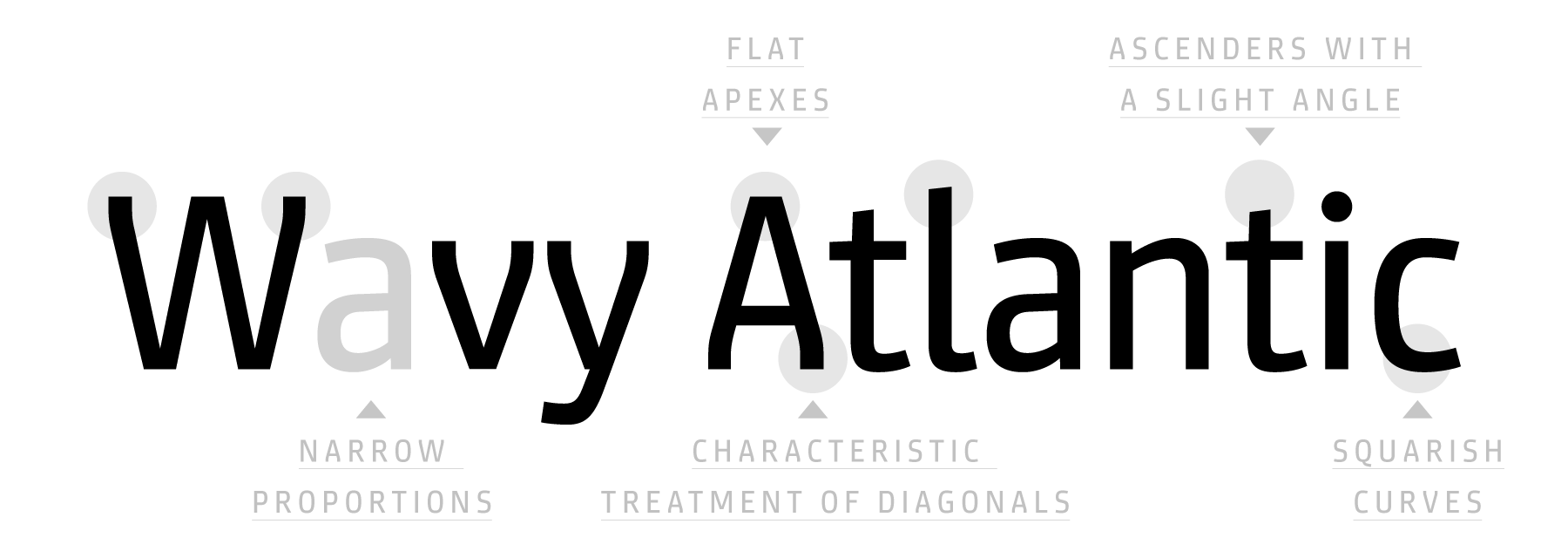
In terms of its appearance, Expose is a constructed sans. It looks like it has taken letterforms drafted by engineers and crossed them with avant-garde remixes of typewriter faces. As a family, it includes four fonts, ranging in weight from Regular through Black. Expose was originally developed as part of a redesign effort for an English-language newspaper here in India. Sadly, the publisher eventually opted not to use the typeface; now it is available for general licensing as part of our ITF library.
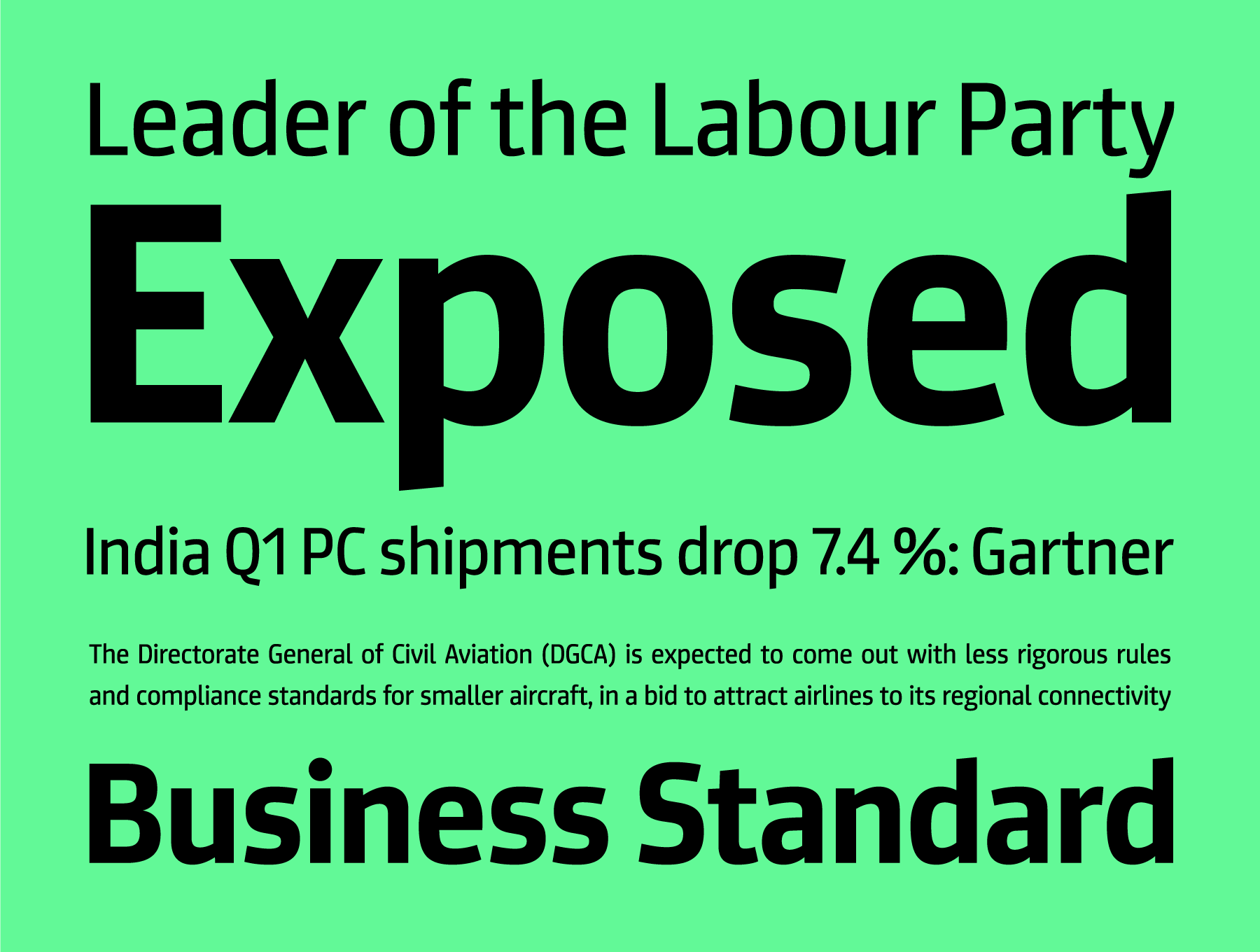
Newspaper headlines need to be compact, and the counters inside of Expose’s letters achieve this by being almost squared off. Something similar happens with Expose’s diagonal strokes, too. Several diagonals change direction towards one end of their stroke, such as in the ‘A’ ‘V’ ‘W’ ‘Y’ ‘v’ ‘w’ ‘y’ and ‘7’, but not the ‘K’ ‘X’ or ‘x’. This stroke change is a feature commonly seen in monospaced sans serifs. While Expose’s design is proportionally-spaced, its design does feel somewhat uniform – especially in its capital letters. The stroke-endings on round letters like ‘C’ ‘G’ ‘J’ ’S’ ‘c’ ‘e’ ‘j’ ‘l’ ‘r’ ’s’ ‘y’ ‘2’ ‘3’ ‘6’ and ‘9’ end in slightly diagonal, rather than vertical shears; this is mirrored by the tops of the ascending strokes on ‘b’ ‘h’ ‘k’ ‘l’ and ’t’. Unusual for a constructed-style sans, Expose’s fonts use the double-storied ‘g’ form.
Yuzu
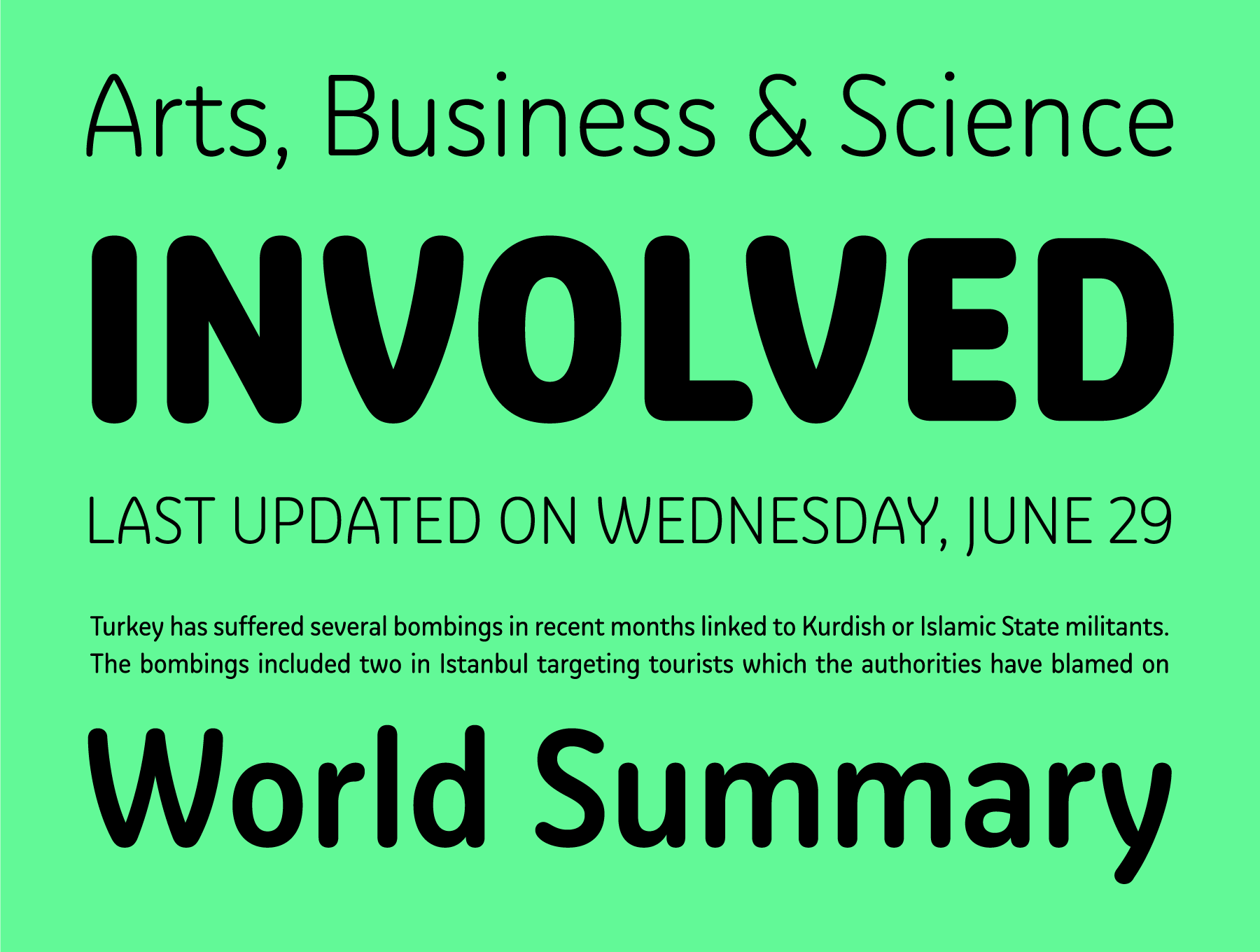
A yuzu is a citrus fruit native to East Asia. It is a great addition to cocktail recipes. ITF’s new Yuzu typeface, on the other hand, is a soft sans. It features rounded stroke-endings and slightly narrow caps. The family includes five styles – Light to ExtraBold – and each font includes 439 glyphs. Aside from its terminals, other soft features in Yuzu’s design include a beard on bottom-right of the capital ‘G’, and arched diagonals on the ‘A’ ‘K’ ‘V’ ‘W’ ‘X’ ‘Y’ ‘k’ ‘v’ ‘w’ ‘x’ ‘y’ ‘4’ and ‘7’. The Yuzu fonts each have two OpenType Stylistic Sets, with alternate letterforms. Stylistic Set 1 includes alternate versions of the typeface’s diagonal letters. Using it substitutes ‘A’ ‘K’ ‘V’ ‘W’ ‘X’ ‘Y’ ‘k’ ’t’ ‘v’ ‘e’ ‘x’ and ‘y’ with straight-stroked diagonals. Stylistic Set 1 also has an alternate letter ‘G’. This version still has a beard; however, it is significantly shorter. The standard lowercase ‘g’ in each Yuzu font is designed with a single-storey form. Stylistic Sect 2 switches this out with a double-storey version.